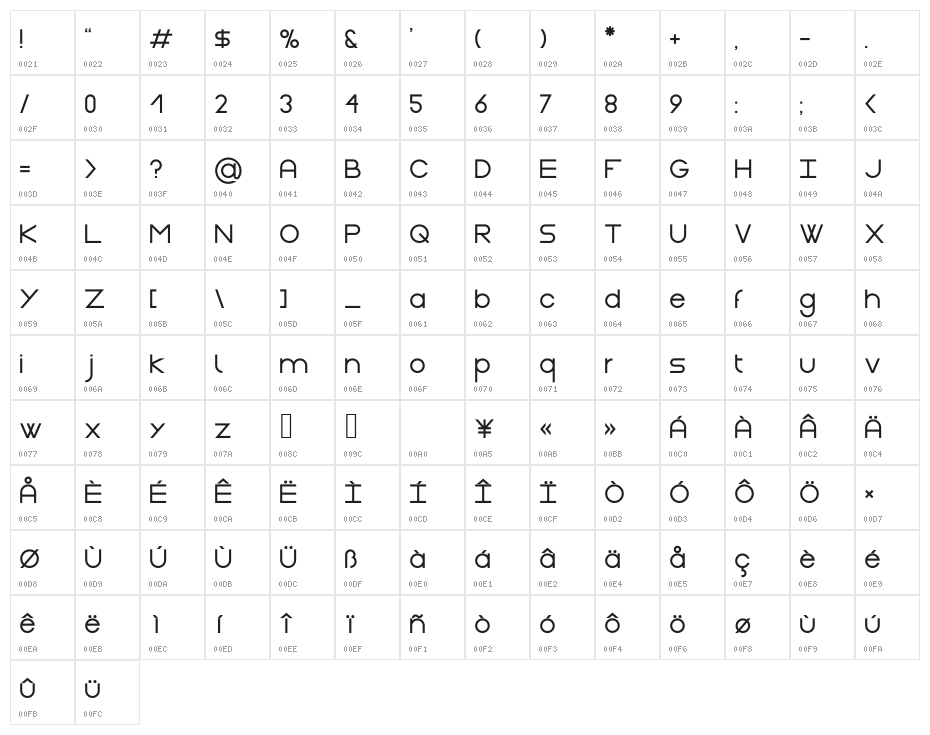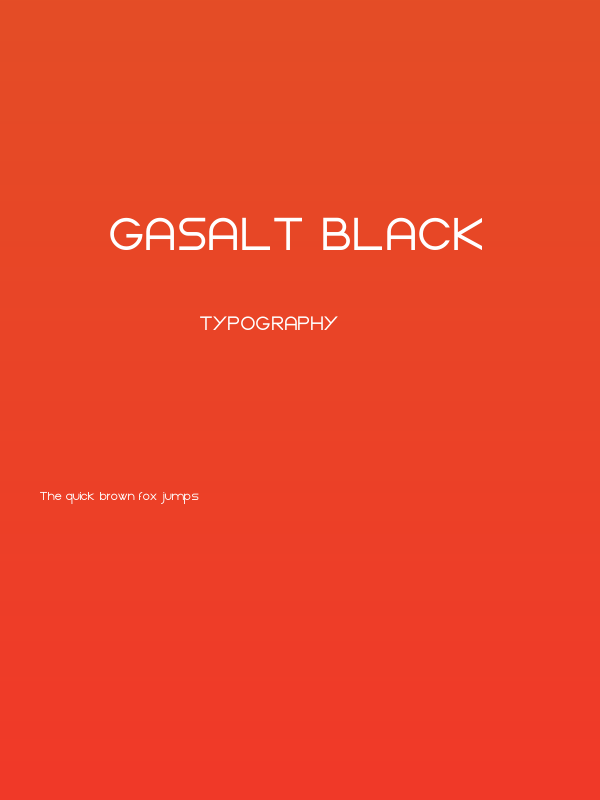
Gasalt Black Font
Gasalt Black Description
This font features a modern and sleek design with clean, geometric lines. The characters are well-balanced, offering a harmonious blend of curves and straight edges. Uppercase and lowercase letters maintain a consistent style, with a slight variation in stroke width that adds subtle dynamism. The numerals are clear and legible, making them suitable for various applications. Special characters are thoughtfully designed, ensuring they complement the overall aesthetic. This font's minimalist approach makes it versatile for both digital and print media.
| Proposed Projects | Ideal for branding, web design, advertising, and editorial layouts. |